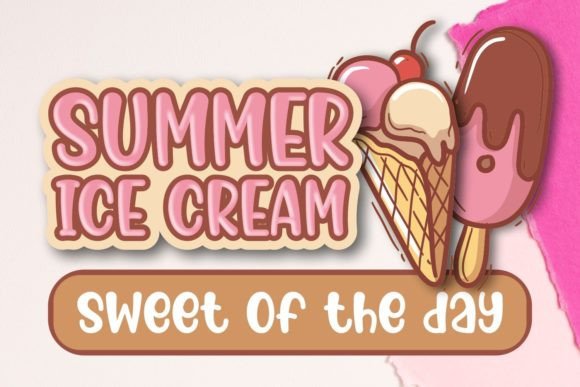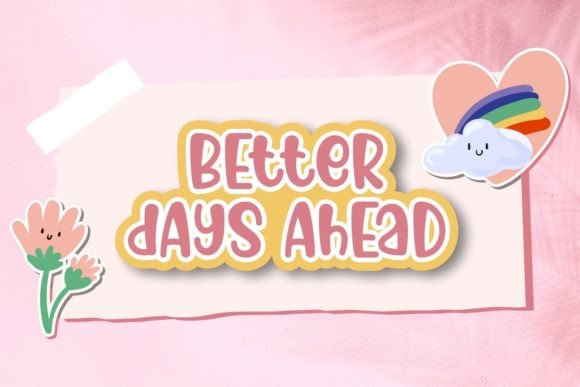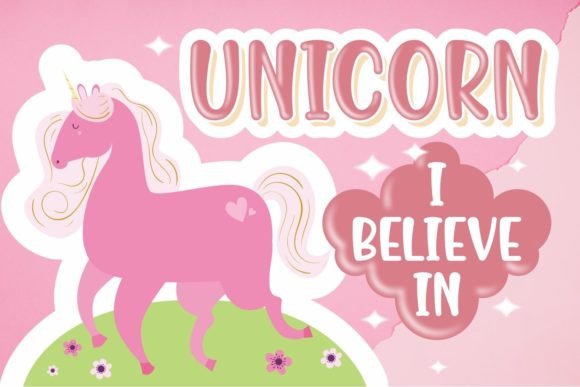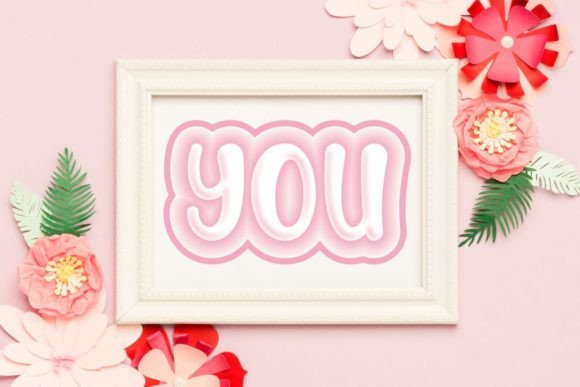
Introduction to Only Thing Font
Have you ever stared at a blank page, searching for the perfect font to bring your creative project to life? We’ve all been there – the cursor blinks, and our minds go blank. But what if I told you that the solution is just a click away? Meet the Only Thing Font, a delightful handwritten font that’s about to become your new design BFF.
With its playful curves and casual strokes, Only Thing Font exudes a friendly and approachable vibe that’s perfect for designs that need a touch of whimsy and charm. Whether you’re designing invitations, social media graphics, or branding materials, this high-quality font is sure to add a touch of warmth and personality to any project. And the best part? It’s available for free download, making it a valuable design resource for creatives of all levels.
Key Features of Only Thing Font
- Only Thing Font is available in 3 different sizes, making it versatile for various design applications.
- Unique, handcrafted design with a distinctive aesthetic, ideal for adding a personal touch to creative projects.
- Perfect for use in digital design, including web design, graphic design, and UI/UX design.
Honest Review: Only Thing Font
As a designer, I’m always on the lookout for high-quality fonts to enhance my creative projects. Recently, I stumbled upon the Only Thing Font, and I’m excited to share my honest review.
- ✨ The font has a transparent background, allowing for seamless integration with any design element.
- ✨ The high quality of the font is evident in its crisp lines and smooth curves, making it perfect for both digital and print designs.
- ⚠️ The font selection is somewhat limited, with only a few styles available.
- ⚠️ The font may not be suitable for large-scale designs, as it can become pixelated at high resolutions.
Overall, the Only Thing Font is a great addition to any designer’s toolkit. While it may not be perfect, its high quality and transparent background make it a valuable resource for any creative project. With a little creativity, the limitations can be easily worked around, and the results can be stunning.
Tips for Getting the Most Out of Only Thing Font
To get the most out of Only Thing Font, experiment with different font sizes, colors, and styles to create visually appealing designs. You can also use it in combination with other design elements to add depth and interest to your project.
The Only Thing Font is ideal for a variety of creative projects, including branding, marketing materials, and digital products. Its high-quality design and transparent background make it an excellent choice for designs that require a clean and modern aesthetic.
Q: Is the Only Thing Font high quality?
Yes, the Only Thing Font is a high-quality design resource, carefully crafted to ensure it meets the highest standards of typography. The font is optimized for print and digital use, making it perfect for a wide range of creative projects.